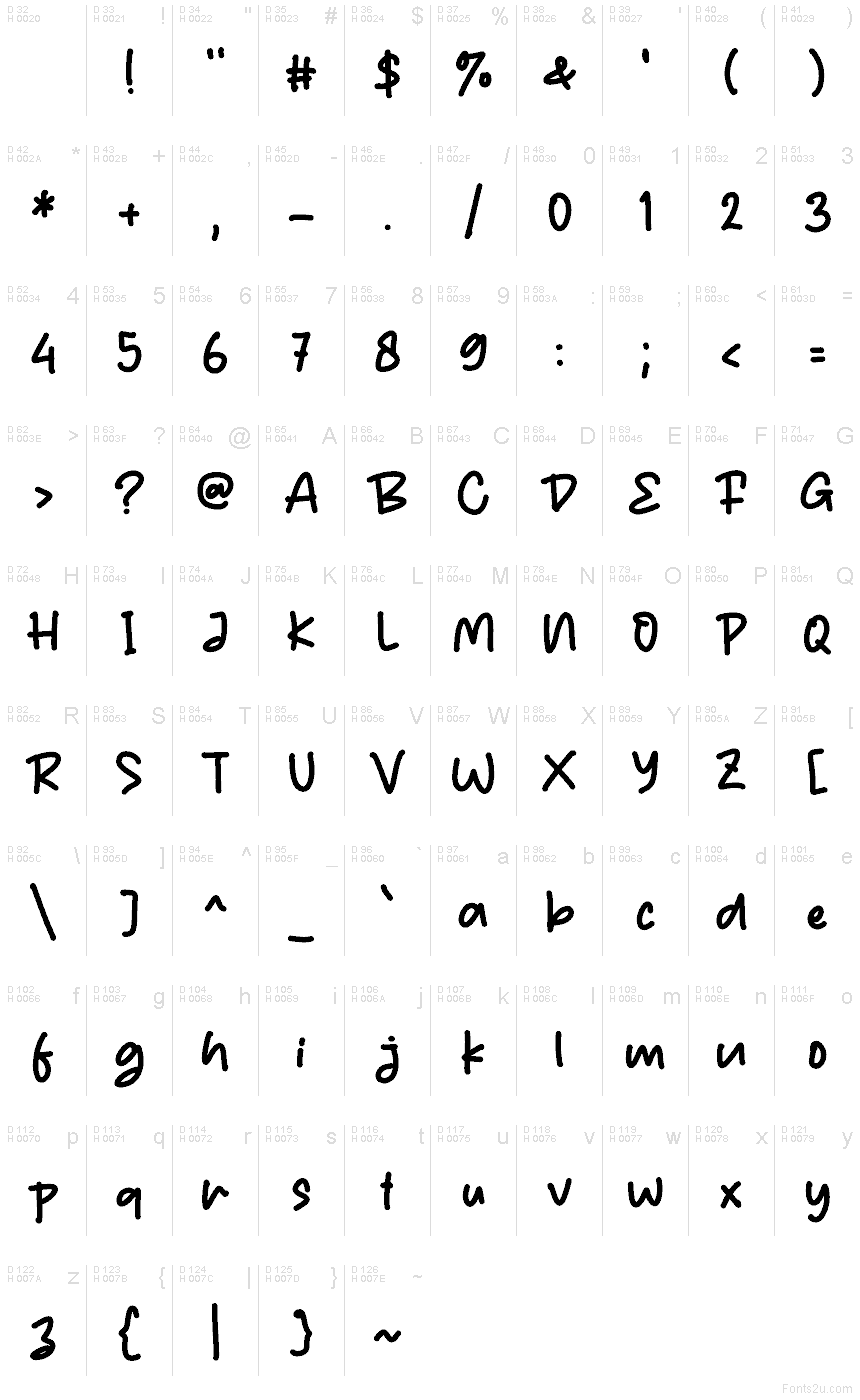
Summer Strike
Summer Strike font by Letterafa Studio is a free handwritten typeface with an easygoing, marker-pen flow that looks like it was written in one confident sweep. The rounded strokes feel soft and inky, while the steady rhythm keeps it legible even at smaller sizes. It has that relaxed, friendly energy that makes text feel personal without getting messy or hard to read.
Using Summer Strike, you can bring a warm, casual vibe to social media graphics, quote posts, brand packaging, greeting cards, event flyers, and playful headers. This free font shines when set large and bold, then paired with a clean sans-serif for body copy to balance its laid-back script with clear, simple text.